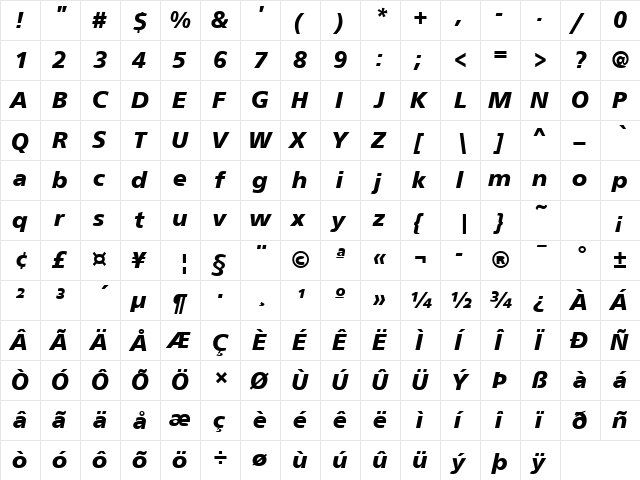
FrontPageLH Bold Italic
Design Context for FrontPageLH Typeface
FrontPageLH offers clean, dependable letterforms without strong stylistic allegiance, making it a practical choice for designers who need flexibility. The slanted form adds forward momentum and visual energy. Its bold stroke weight gives it real presence on the page.
Pro Tip: Use FrontPageLH for emphasis, pull quotes, and subheadings where its slanted energy can add rhythm to the layout.